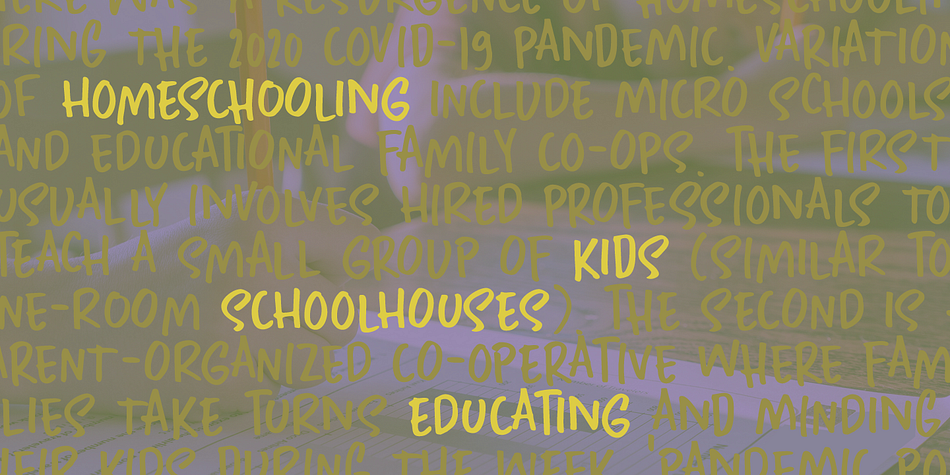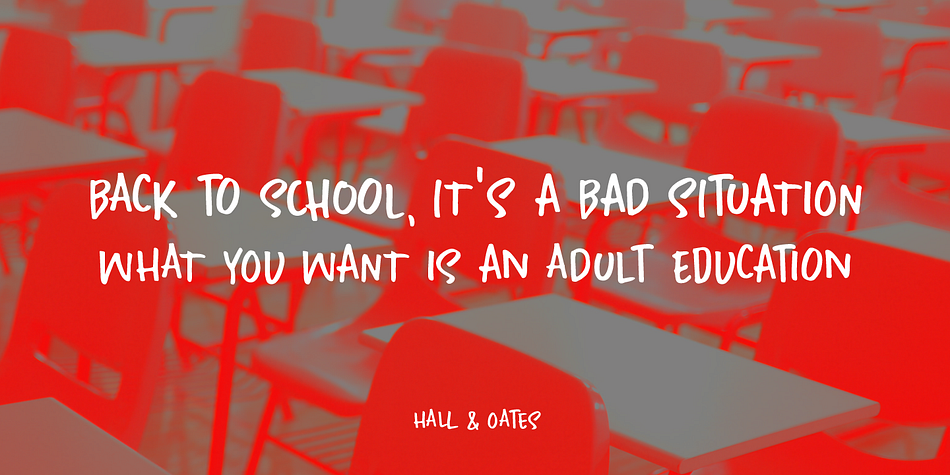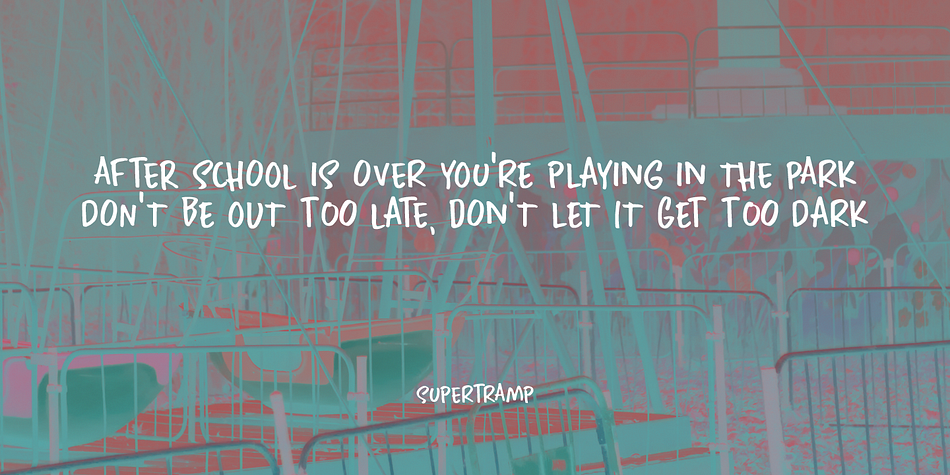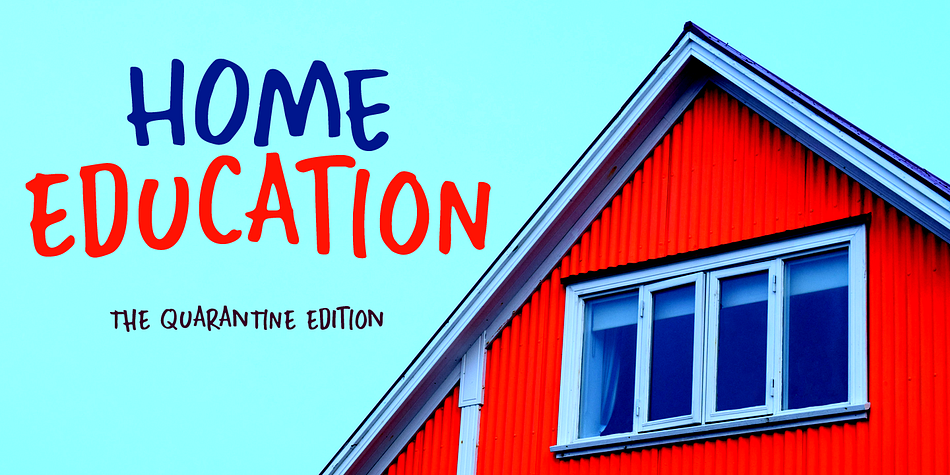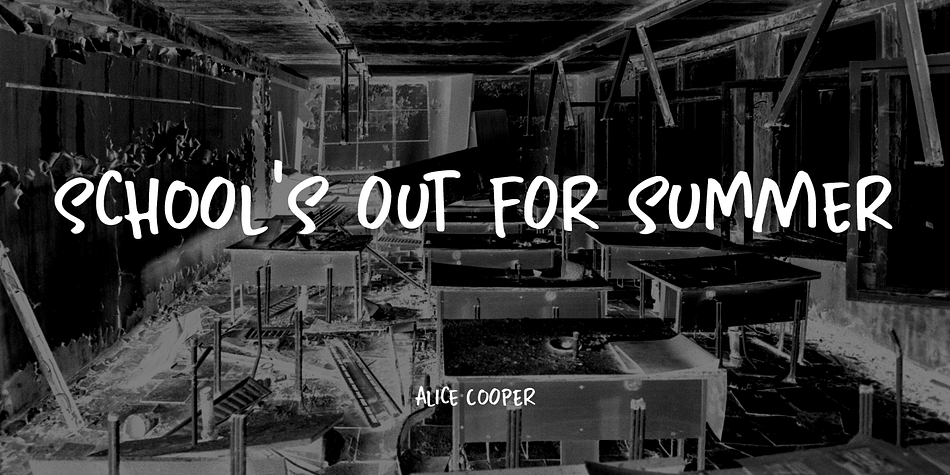
Designed by David Kerkhoff, Home Education is a hand drawn font family. This typeface has two styles and was published by Hanoded.
Just before the end of 2020 all schools in Holland closed for the second time, because of an increase in the number of COVID 19 cases. This means that my wife and I have to educate our three kids at home. The kids are great and take their tasks seriously, but it is difficult, as all three of them require different educational levels. I am sure you parents understand.
Trying to get some work done is virtually impossible, so my wife and I made a schedule and we live by ‘on duty’ and ‘off duty’ days.
I was thinking of this when I created this font (obviously on an ‘off duty’ day).
Home Education is a handwritten scribble font. It was made with a Sharpie pen (possibly used by one of my kids, because I noticed tiny ink stains on my wooden dining table…). It comes with all the diacritics you can hope for and lovely double letter ligatures for you to play with.